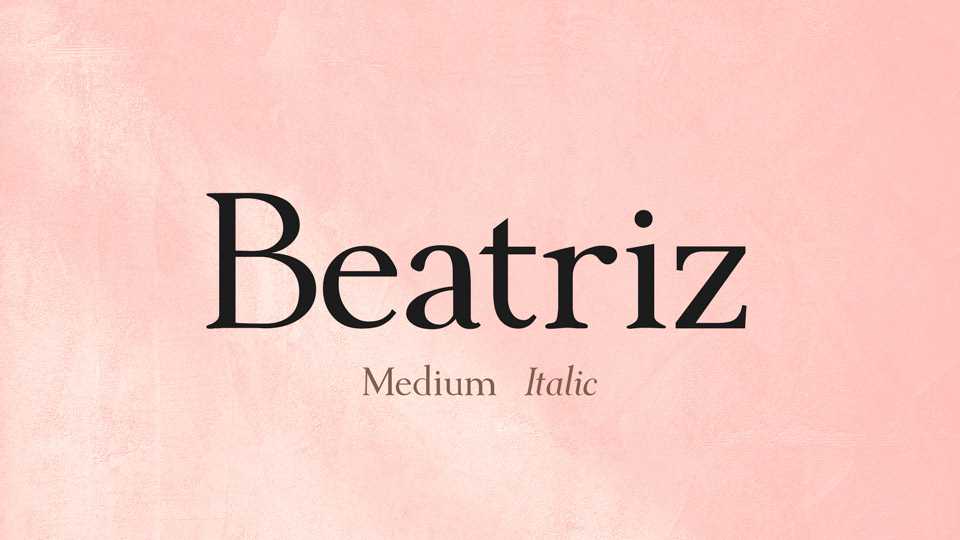
Download Beatriz typeface, a serif font family in Regular and Italic inspired by a grab-bag of humanist fonts. Beatriz font has smooth strokes, moderate stem contrast to achieve clarity, readability and a warm personality.
Designer: Jason Reed